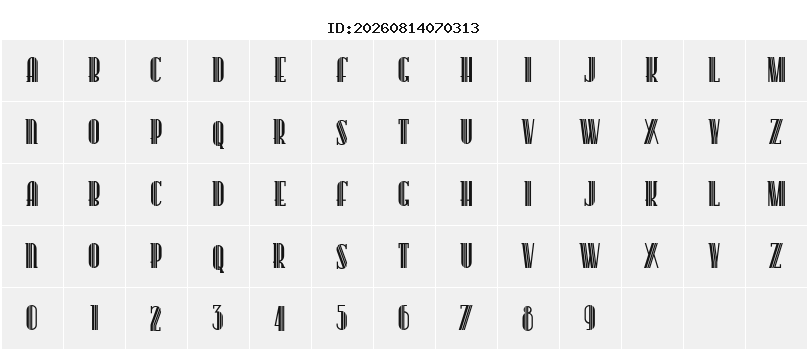
Super Bob Triline Nf Preview
About Super Bob Triline Nf.ttf
Super Bob Triline Nf.ttf is a modern, elegant sans-serif font designed for ultimate readability and visual harmony. Perfect for branding, headlines, web design, and print materials.